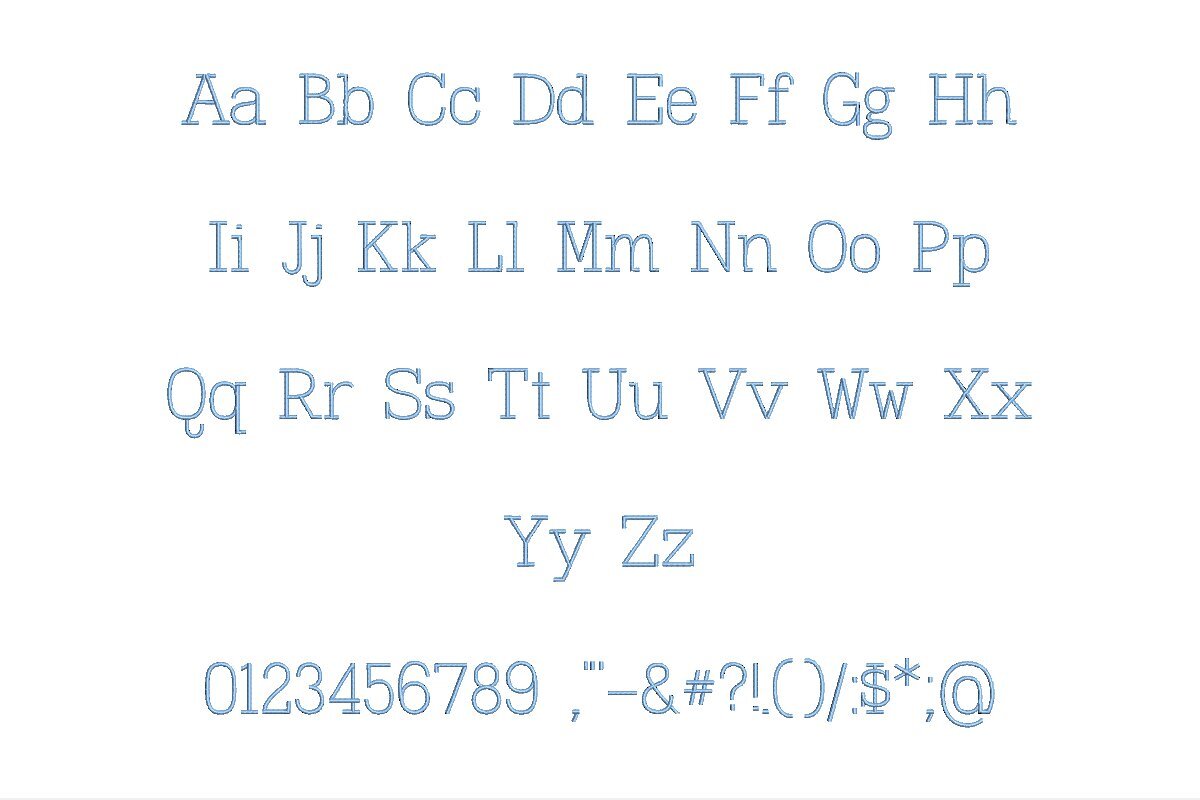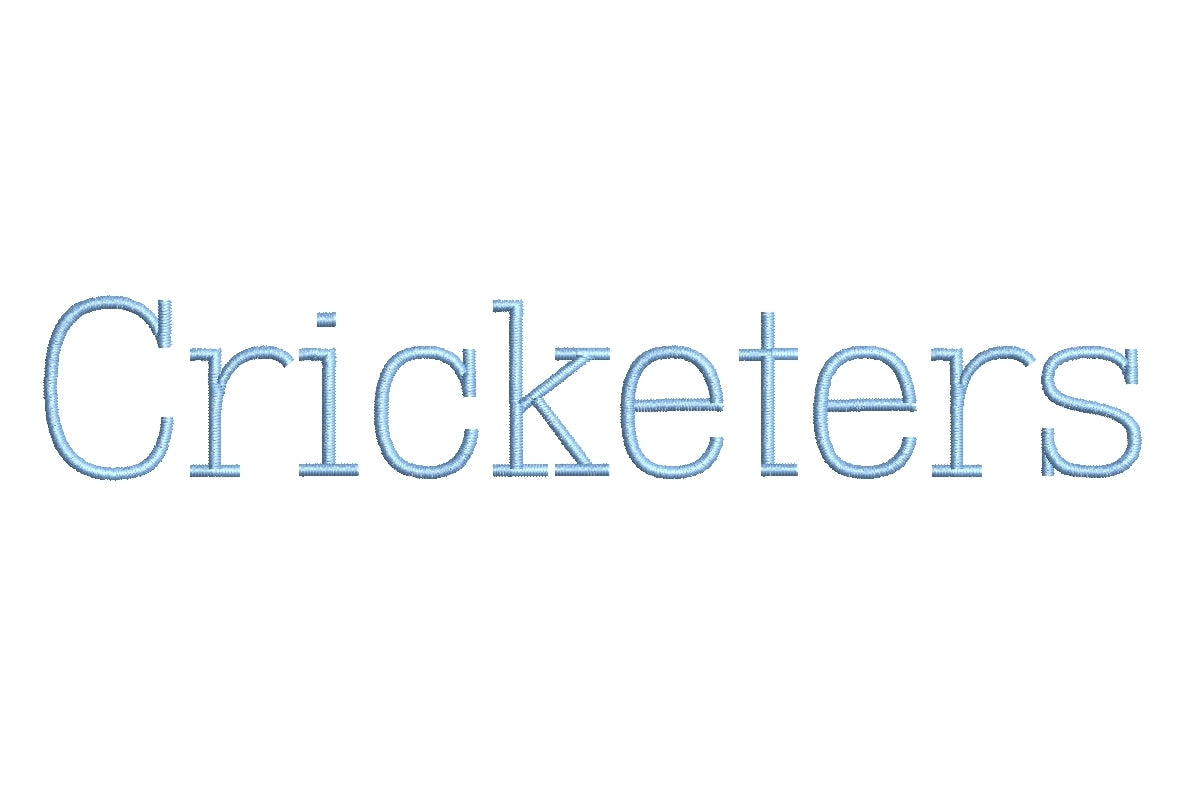
Introducing the Cricketers ESA Font, a must-have for sports enthusiasts. This font is designed for flawless compatibility with Wilcom Studio e4.5.6 and Hatch 3 versions and beyond. Whether you're a seasoned embroiderer or a novice, Cricketers ESA simplifies your creative process. Its seamless integration with Wilcom Studio and Hatch ensures easy digitizing and stitching. Crafted with precision, this font embodies the spirit of cricket, adding sporty elegance to your designs. Elevate your embroidery projects and show your love for the game with the Cricketers ESA Font. Order now to create sports-inspired designs that truly stand out.